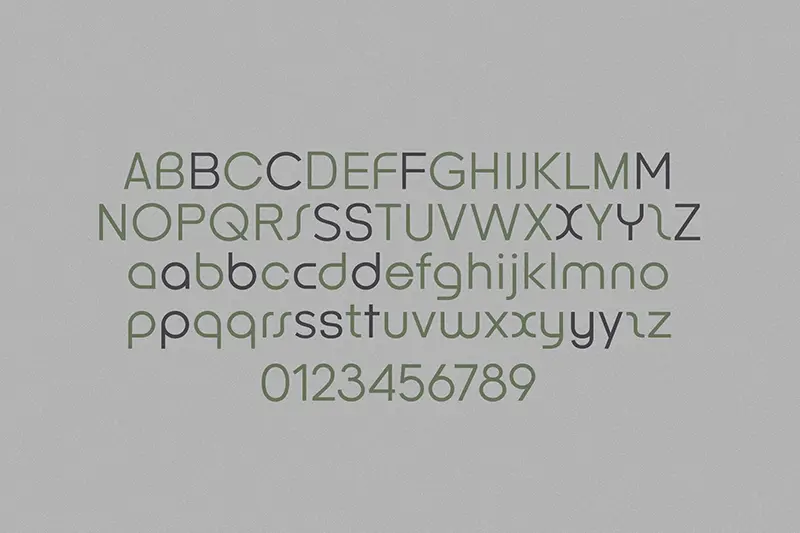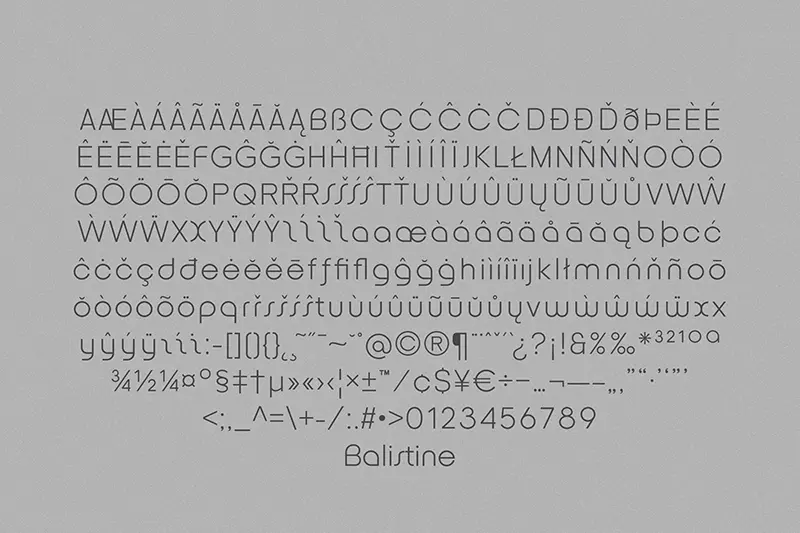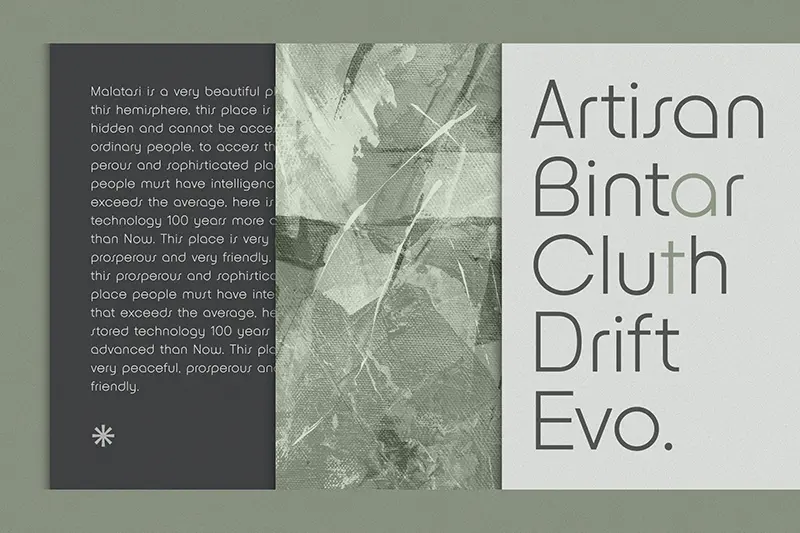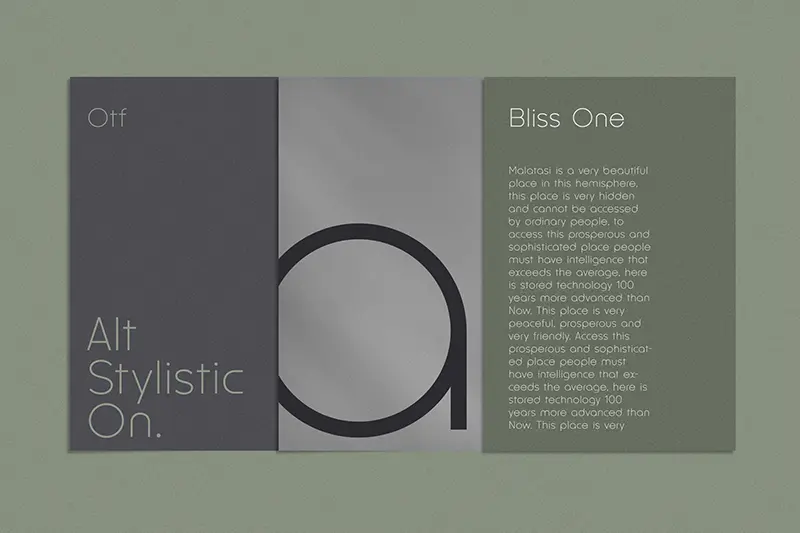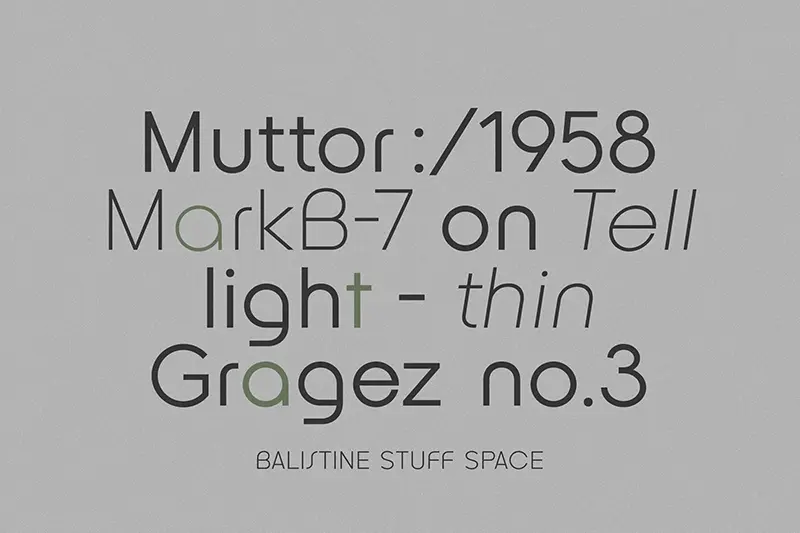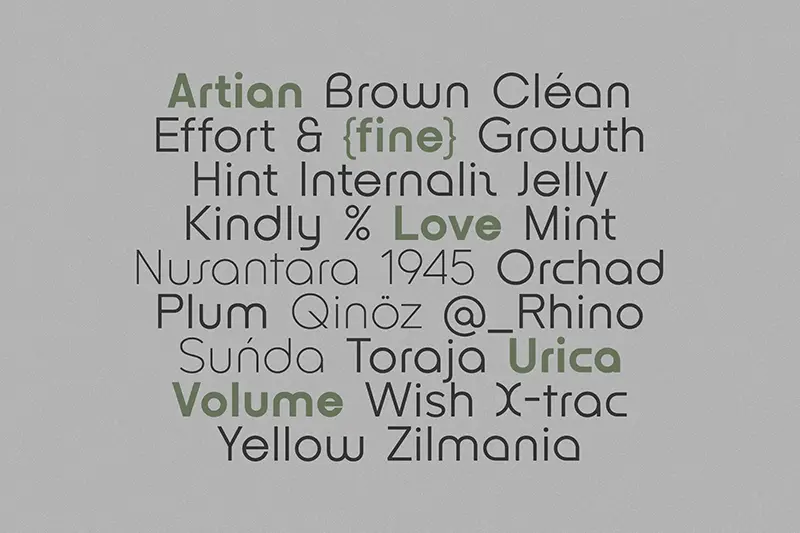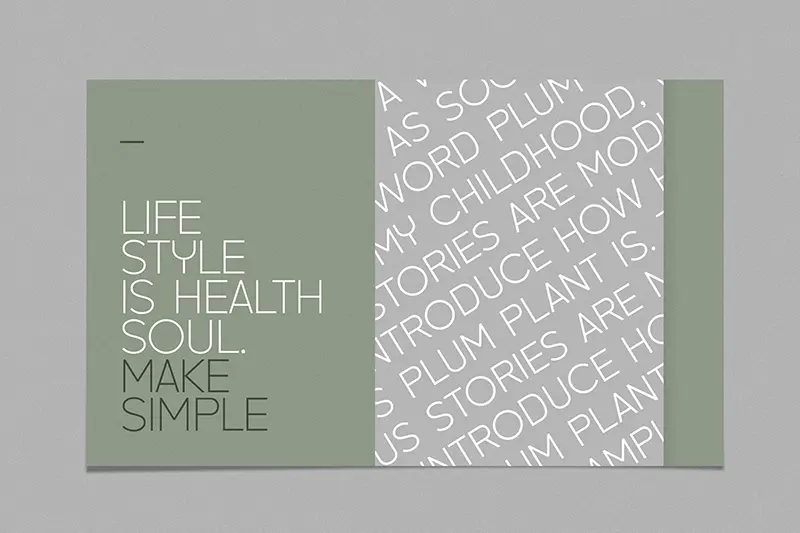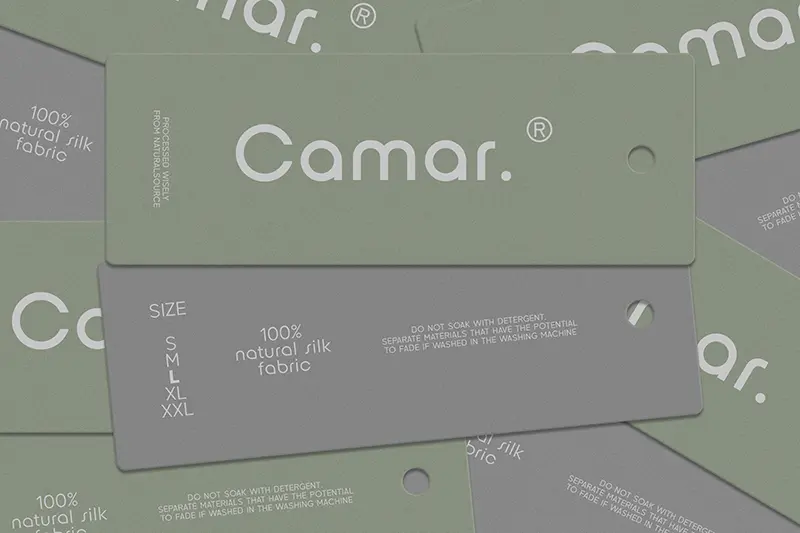
Imagine fonts that effortlessly enhance your headlines, make your text flow beautifully, and give your print materials a professional edge. The Balistine Fonts delivers just that!
With 20 fonts spanning across standard weights to elegant Light weights and robust Heavy weights—plus a variety of Italics for added flair—this bundle provides the perfect typographic toolkit for any design project.
This Balistine Fonts Bundle includes -
Standard Weights
• Regular
• Medium
• Semi Bold
• Bold
Light Weights
• Thin
• Extra Light
• Light
Heavy Weights
• Black
• Extra Bold
• Extra Black
Italics
• Italic
• Medium Italic
• Semi Bold Italic
• Bold Italic
• Thin Italic
• Extra Light Italic
• Light Italic
• Black Italic
• Extra Bold Italic
• Extra Black Italic
Highlights Of The Bundle:
• 20 Balistine Fonts – Standard weight, Lightweight, Heavy weight and Italics
Balistine Fonts Preview:
Balistine font mockup
mockup
balistine preview
font mockup displayed on a clothing tag
Various fonts preview
balistine preview
Upper case and lower case preview
numbers and symbols preveiw